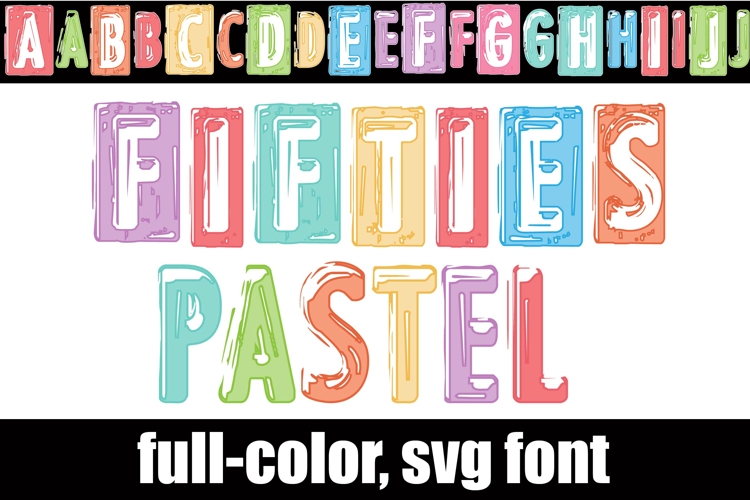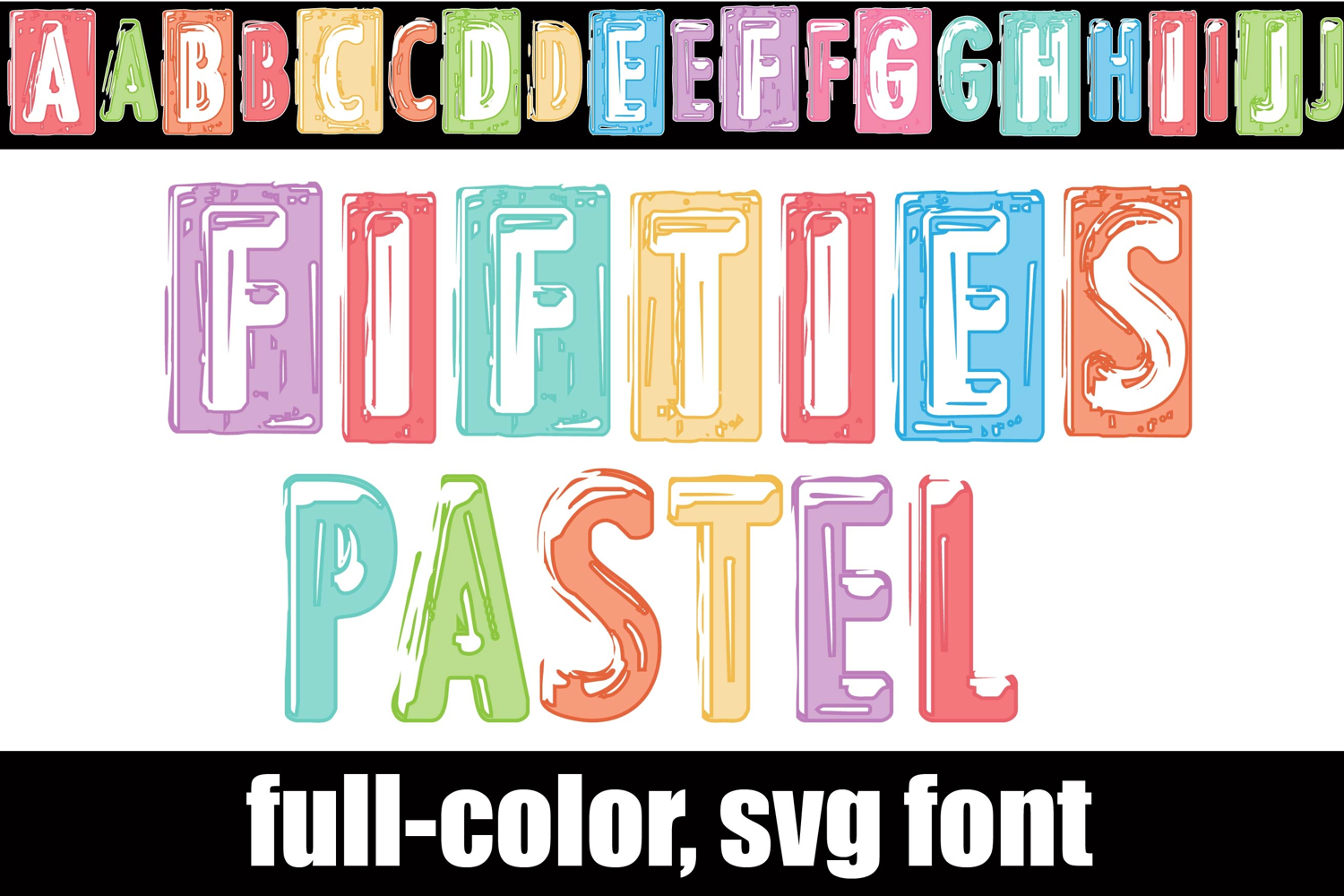
Fifties Pastel Color Font
This full-color, sans serif in a pastel color palette looks like imprinted metal. There is an alt case of additional colors of each letter that you can access through your system's character map.